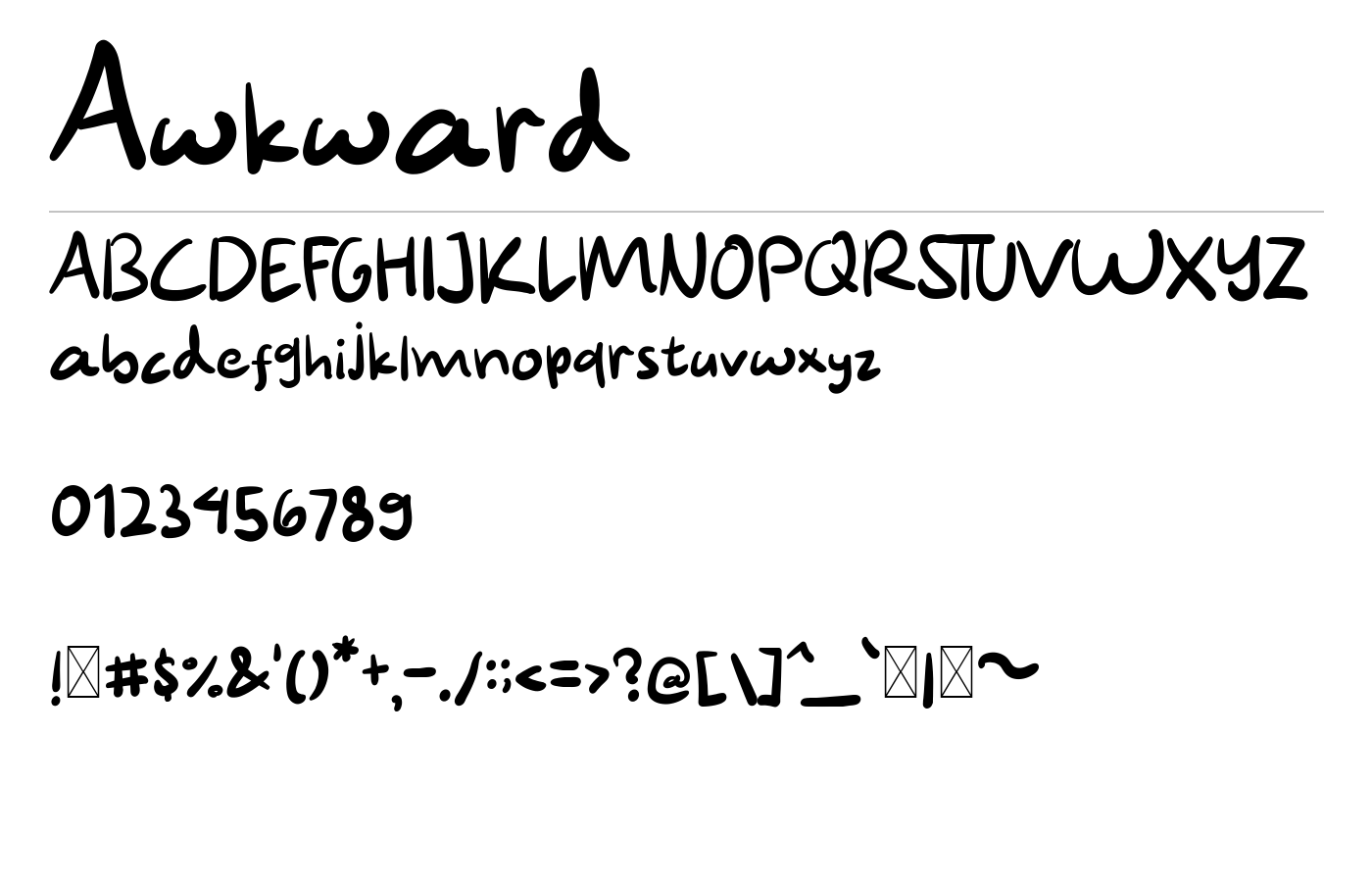
Awkward Font is a playful and informal handwritten sans serif with a casual, slightly uneven stroke that gives it a friendly, approachable character. Its medium weight and moderate x-height combine with quirky letterforms and rounded edges to evoke a fun, personal feel, making it perfect for creative projects, children’s materials, and approachable branding. This font works well in titles, logos, and invitations where a relaxed and whimsical style is desired.
Awkward Font
About Awkward Font
| Font family | Awkward Font |
| Designer | Diki Pradipta Tri Atmojo |